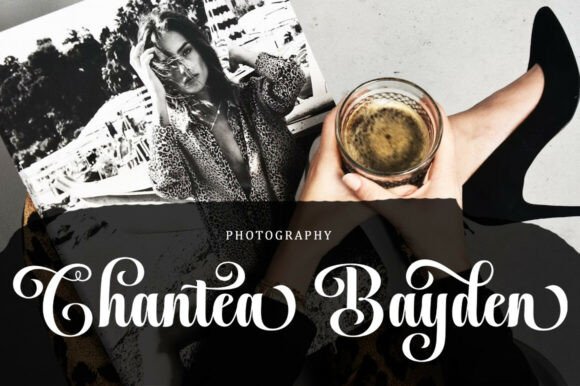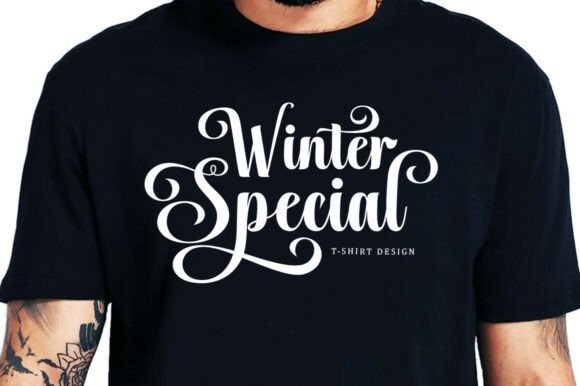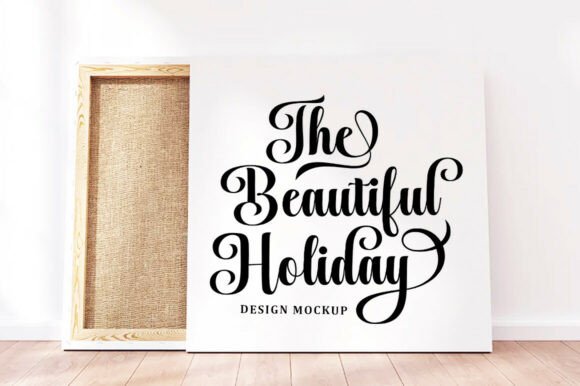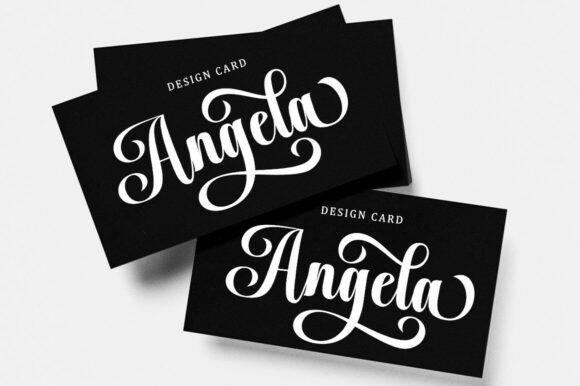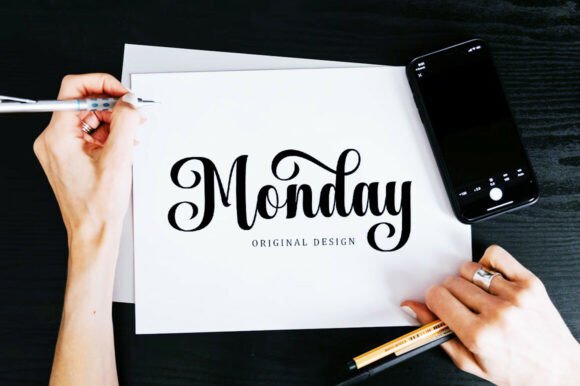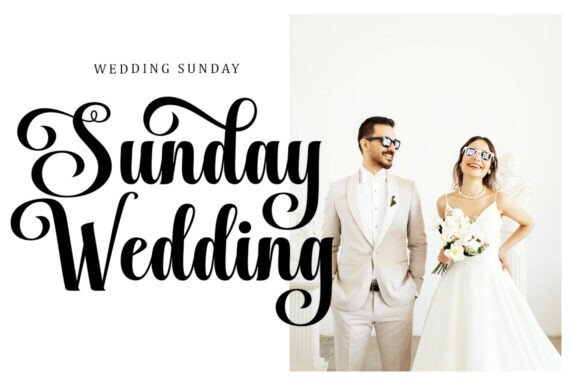
Introduction to Chocolate Strawberry Font
Chocolate Strawberry is a calligraphy script font with beautiful alternate characters.
This font combines calligraphy with an elegant style, designed to convey a sophisticated and romantic style Chocolate Strawberry is appealing because it is smooth, clean, feminine, sensual, glamorous, simple, and highly legible.